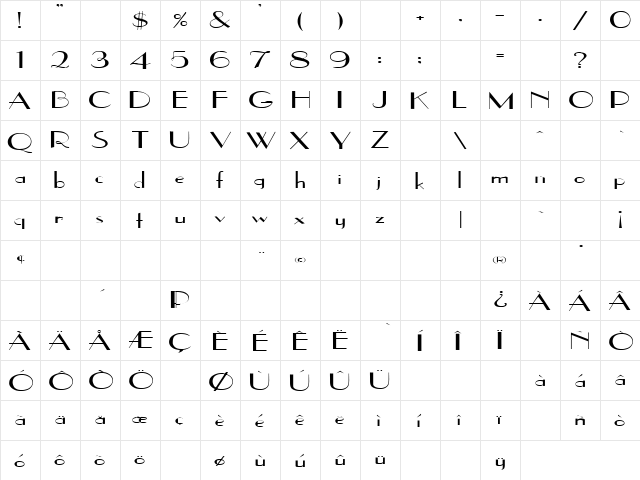
Coke 15 Regular
Design Context for Coke 15 Typeface
Coke 15 is a composed and adaptable typeface that performs quietly and consistently across a wide range of design contexts.